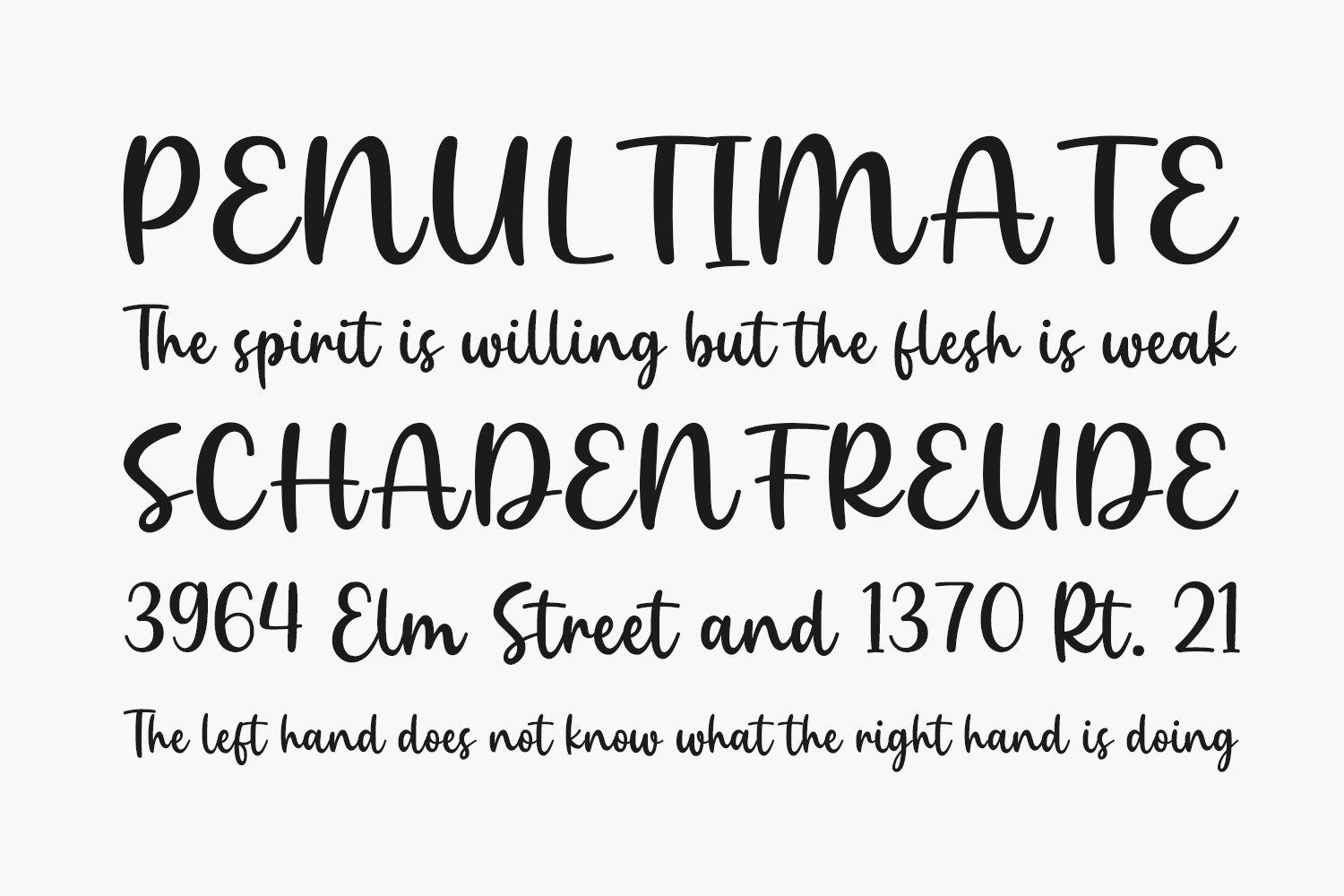
Scarlet Heart Free Font is a lovely handwritten font. It is perfect for logos, branding, and quotes. This font reads as strong, confident, and dynamic and can add tons of stylish character to your designs.
Designed by Suby Studio